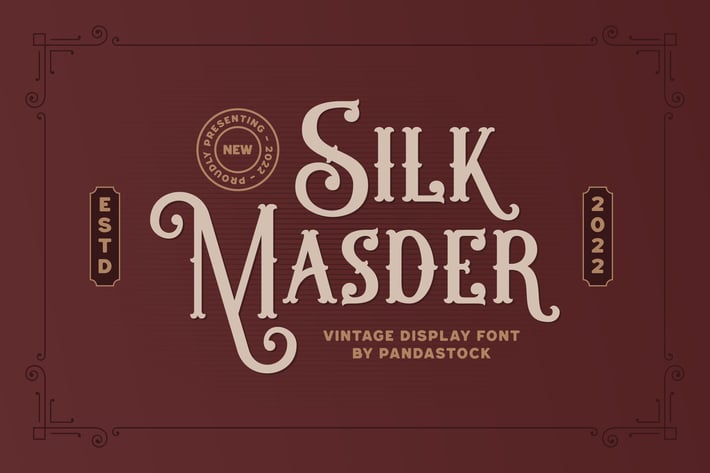
Silk Masder - Vintage Font
Silk Masder is a vintage font with visual elegance, smooth curves, and beautiful ligatures clear, making your work look true and attractive.
A versatile font that works in both large and small sizes. This font is suitable for a wide variety of projects such as invitations, logos, branding, magazine, photography, card, product packaging, mugs, quotes, poster, labels, signatures, and more.
Font that is perfect for all business sectors including personal projects, studio, corporate, creative agency, industrial, company, etc.
- Uppercase and Lowercase
- Punctuation, Number, and Symbol
- Opentype Features